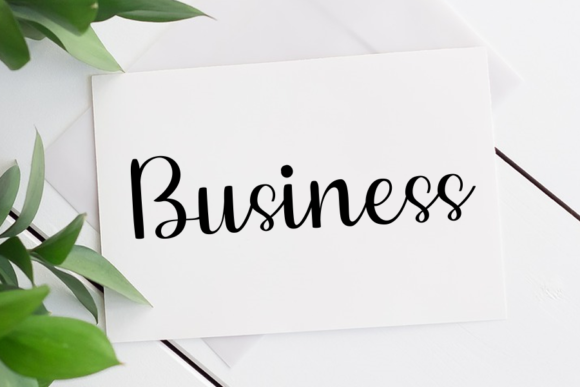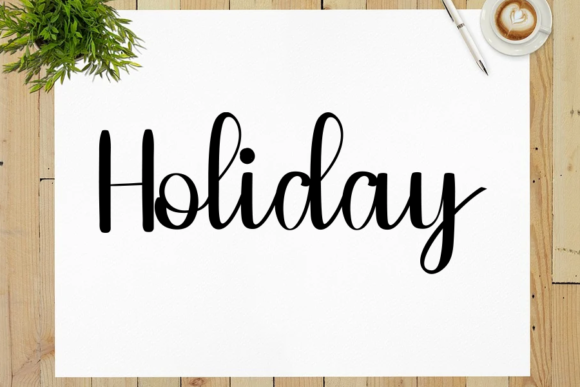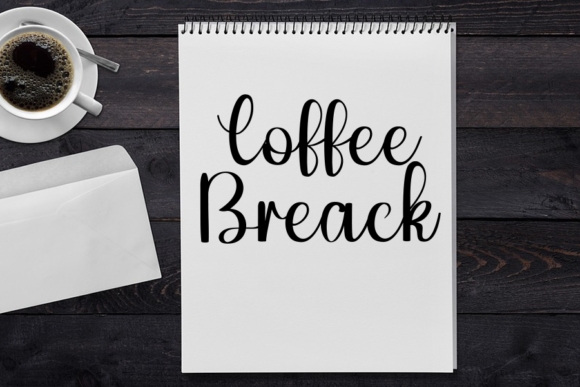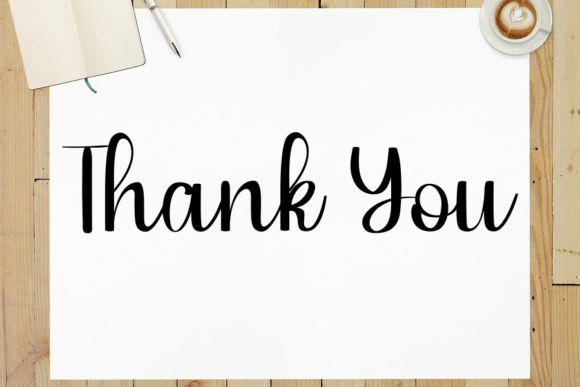
The Sweet Spot: Discovering the Charm of Chocolate Font
This enchanting handwritten font has a way of adding a touch of whimsy and romance to any project. In this article, I’ll share my experience with Chocolate Font, its features, and how to make the most of it in your designs.
An Honest Review of Chocolate Font
- 💫 Versatility: Chocolate Font is a highly versatile script font that can be used for a wide range of projects, from greeting cards to headlines.
- ✅ Elegant yet Playful: The font strikes the perfect balance between elegance and playfulness, making it ideal for designs that require a touch of sophistication and whimsy.
- 🌈 Wide Range of Applications: Whether you’re working on a wedding invitation, a branding project, or a social media graphic, Chocolate Font is sure to add a romantic feel to your design.
- ⚠️ Limited Use in Body Text: While Chocolate Font is perfect for headlines and titles, it may not be the best choice for body text due to its script nature.
- 🤔 Kerning Issues: As with any script font, you may encounter kerning issues, especially when using the font at smaller sizes.
The Story Behind Chocolate Font
Chocolate Font was designed by a team of typographers who wanted to create a font that would evoke the feeling of warmth and romance. Inspired by traditional handwritten scripts, they crafted a font that is both elegant and playful. The result is a versatile font that can be used in a wide range of projects.
Q: What is Chocolate Font?
A: Chocolate Font is a beautiful, handwritten script font that adds a touch of romance and elegance to any project.
Q: Is Chocolate Font suitable for body text?
A: While Chocolate Font is perfect for headlines and titles, it may not be the best choice for body text due to its script nature.